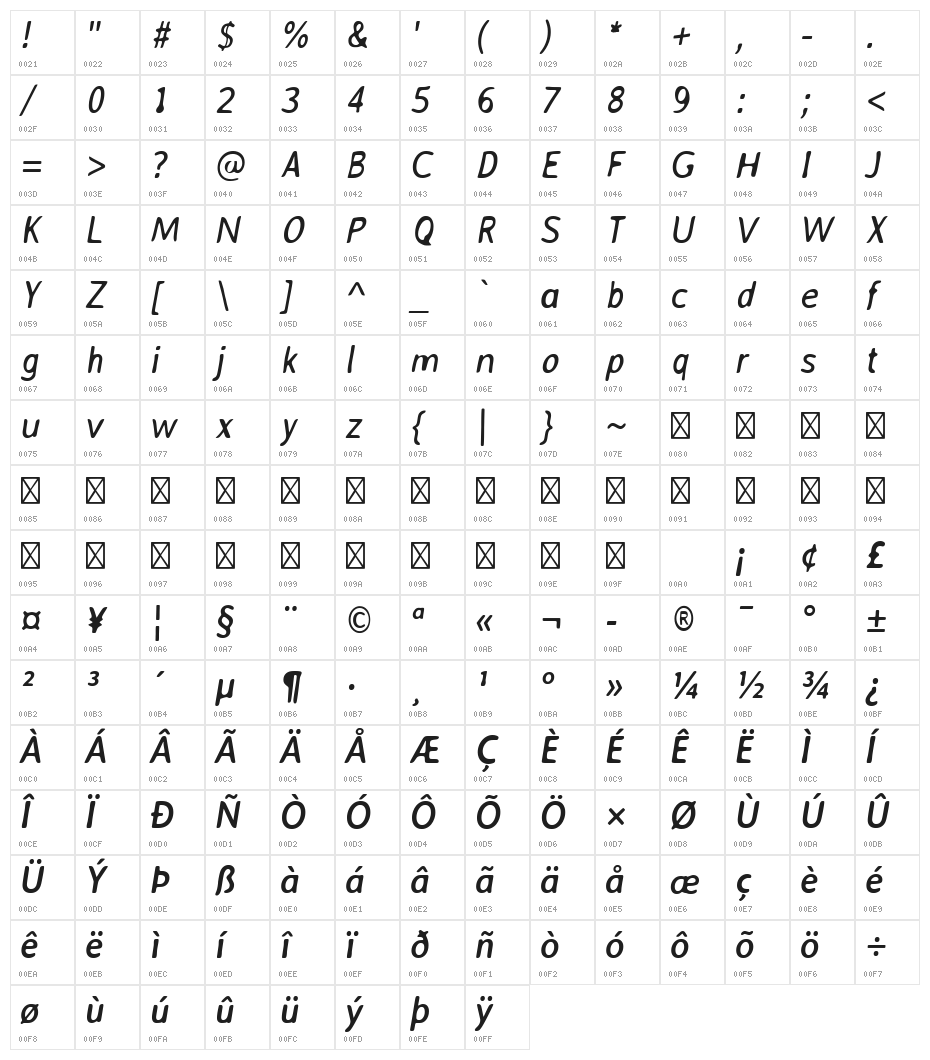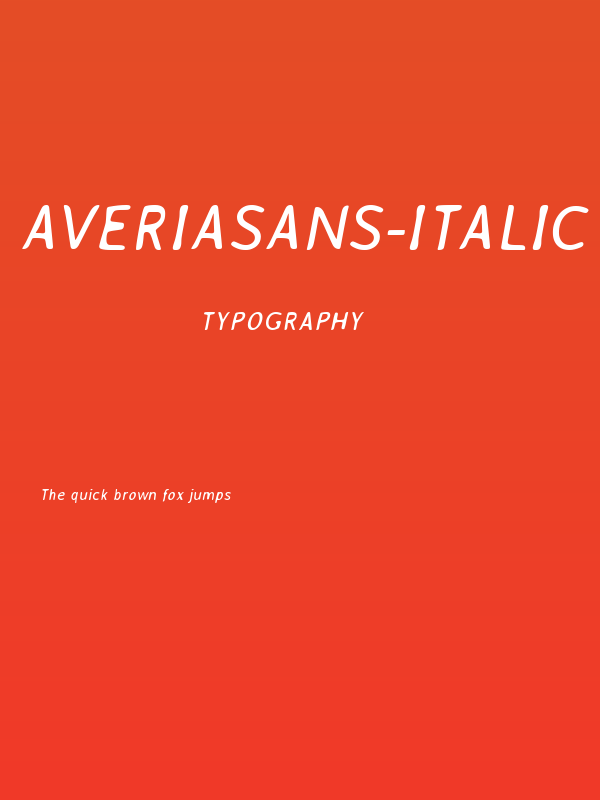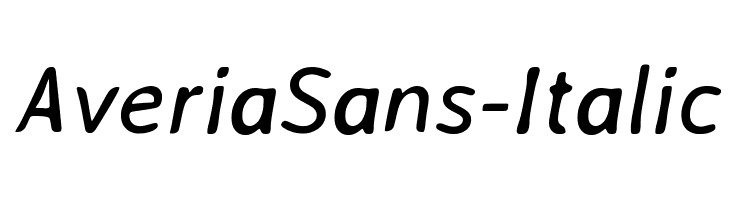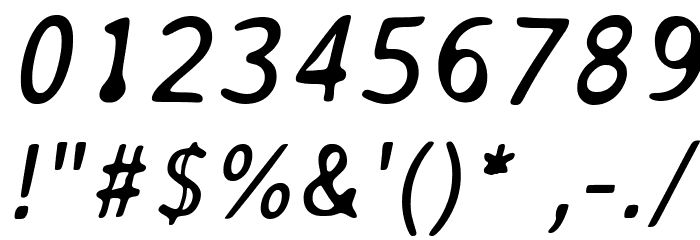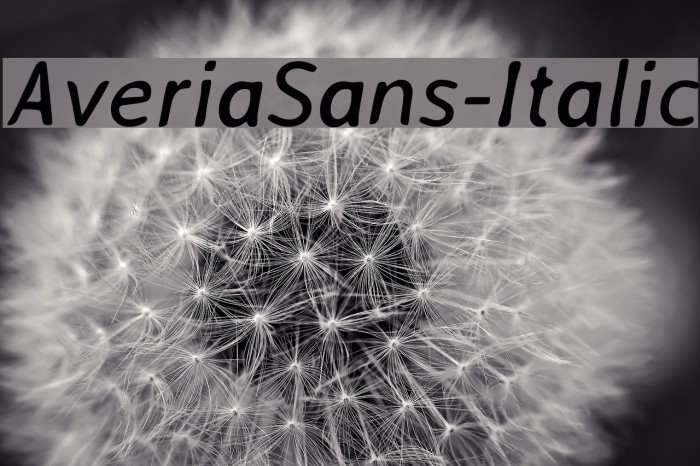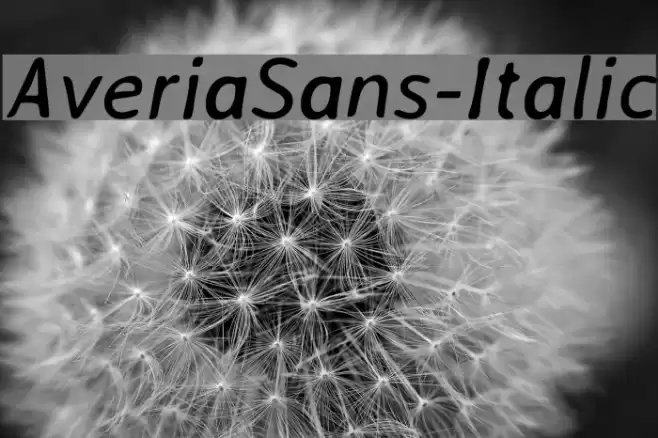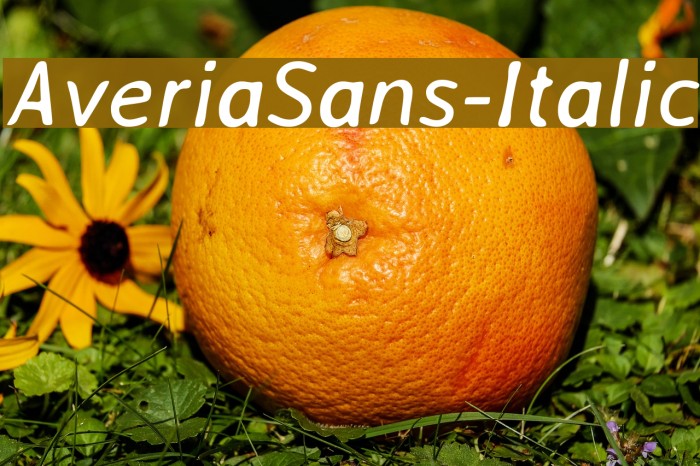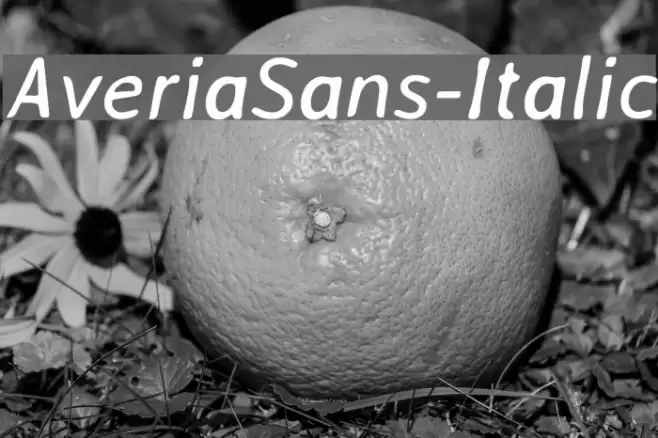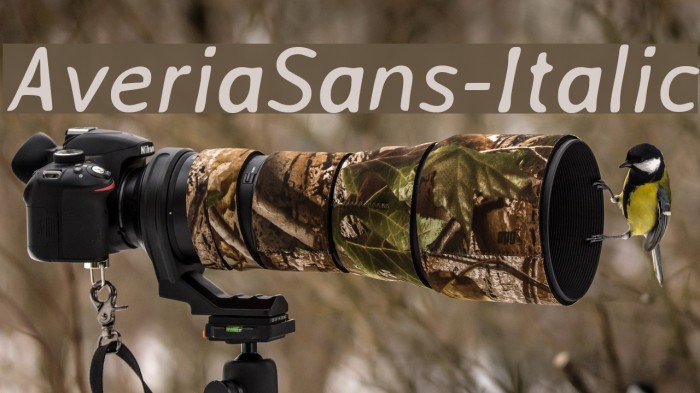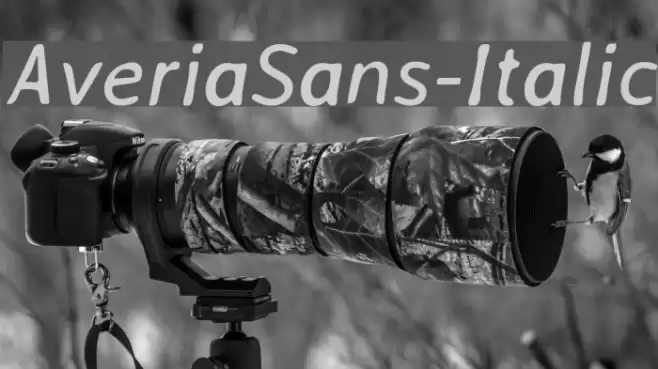
AveriaSans-Italic Font
AveriaSans-Italic Description
This font features a smooth, flowing style with a slight slant, giving it an elegant and approachable appearance. The characters are rounded with consistent stroke widths, contributing to a harmonious and balanced look. The uppercase letters are slightly taller than the lowercase, maintaining a uniformity that enhances readability. The numerals and special characters are designed with the same fluidity, ensuring a cohesive overall aesthetic. This font's italic nature adds a touch of sophistication, making it suitable for a variety of design applications.
| Use Case | Headlines, Body text, Logos |
| Proposed Projects | Ideal for projects requiring a friendly yet sophisticated touch, such as invitations, greeting cards, and branding materials. |